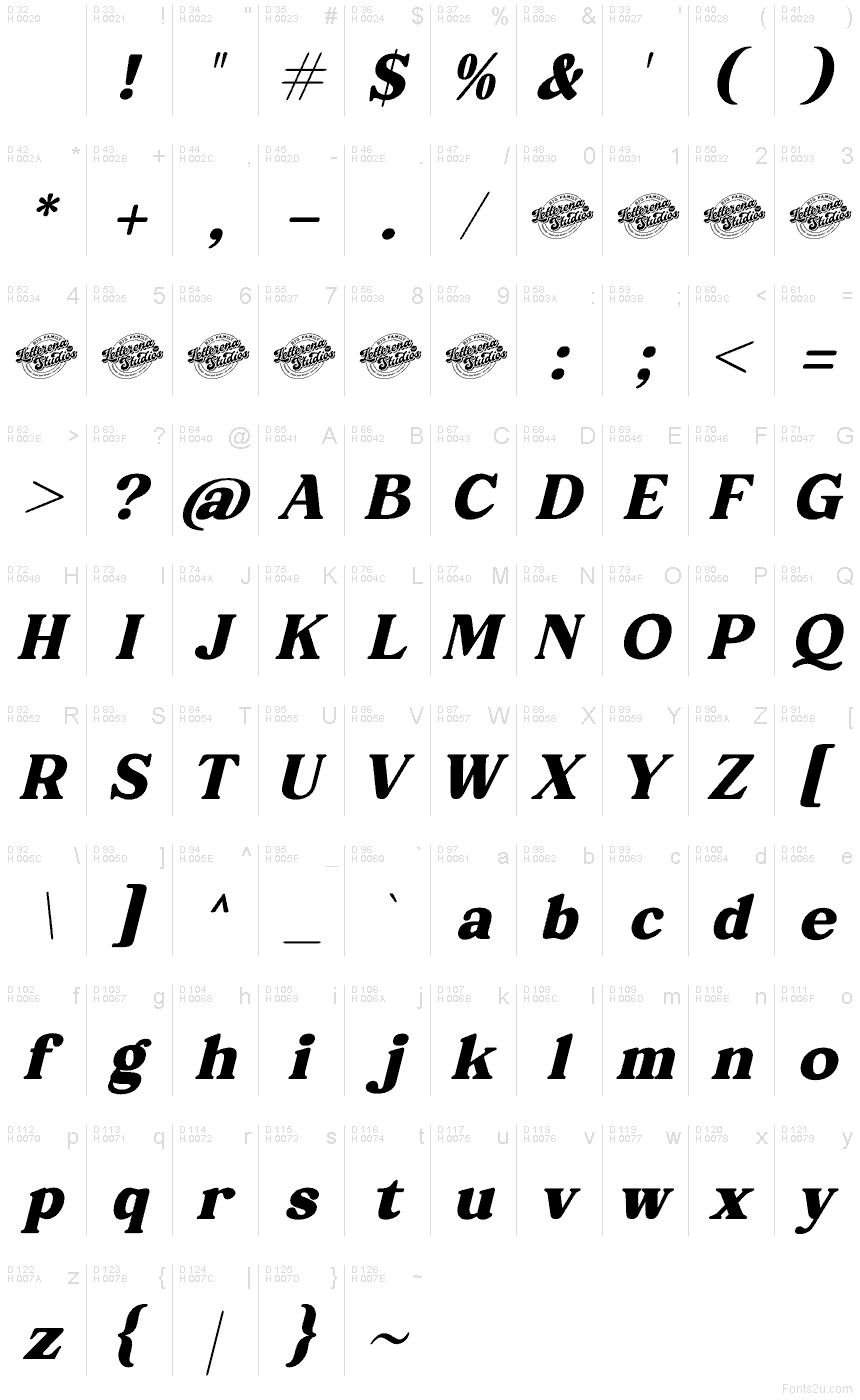
Blastge DEMO VERSION Italic
Blastge Italic font by Letterena Studios is a free italic serif typeface built for momentum. Part of the Blastge family, it pushes forward with thick, velvety strokes and firm wedge serifs that feel both polished and punchy. The slant adds a quick, almost calligraphic snap, while the sturdy weight keeps lines crisp and legible at bolder sizes.
Using Blastge Italic, headlines and logos come off confident; it also shines on magazine covers, packaging, event posters, book titles, and bold social graphics. The tight rhythm and generous curves give messages a muscular elegance. Pair this free font with a clean geometric sans for body copy, and let Blastge Italic carry the hero lines.